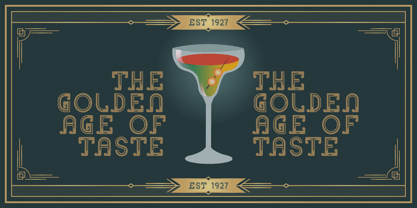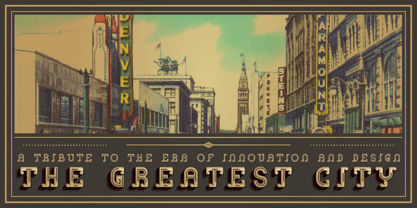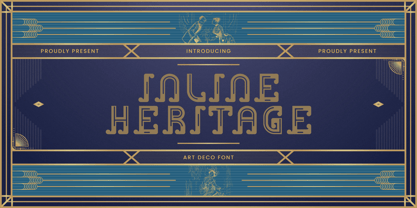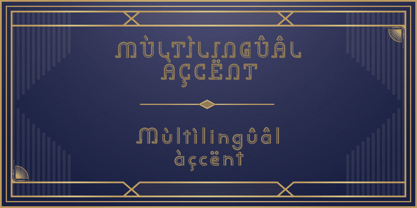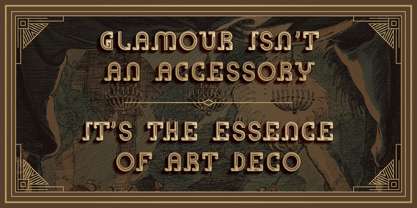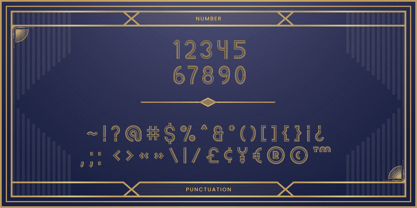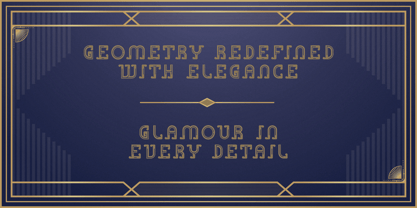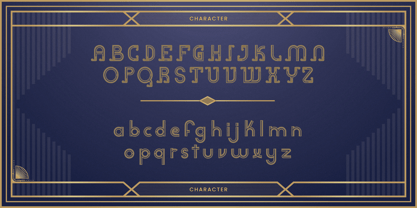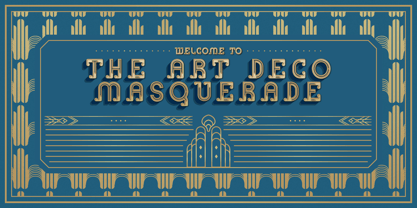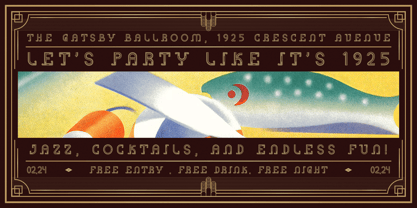
Inline Heritage
Inline Heritage – The Timeless Art Deco Typeface
Step into the golden era of design with Inline Heritage, a luxurious Art Deco-inspired typeface that combines elegance, geometry, and vintage charm. With its bold inline strokes and intricate details, Inline Heritage captures the opulence of the roaring twenties while offering modern versatility.
Perfect for sophisticated branding, event invitations, vintage posters, luxury packaging, and editorial designs, this font brings a touch of glamour to any project. Its sleek lines and ornate style evoke the grandeur of Art Deco architecture and the vibrant energy of the jazz age.
- Multilingual, US Roman, Latin 1 Support